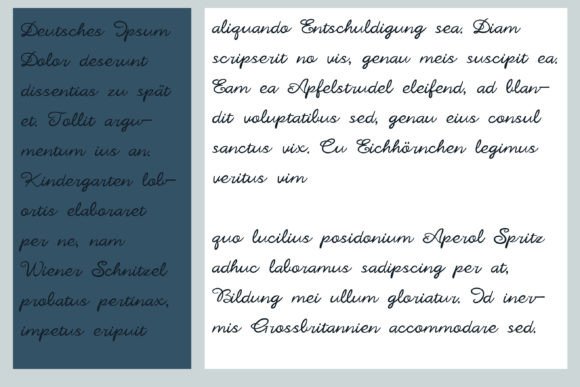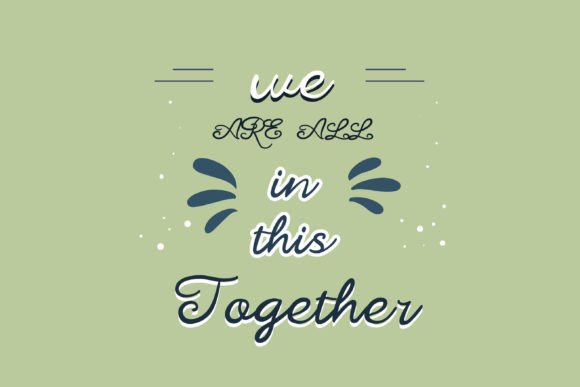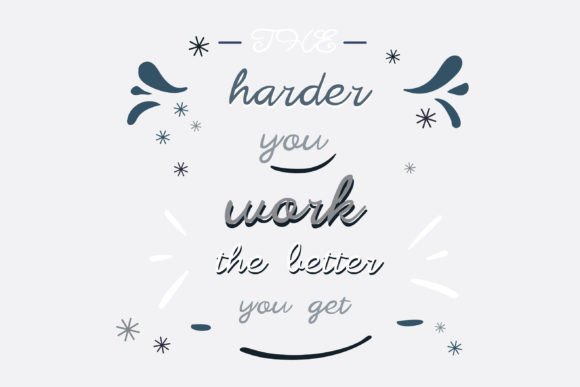
Introduction to Infatuation Font
Remember that moment when you stumbled upon the perfect font for your creative project? The one that made your design stand out and spoke directly to your audience? For designers, finding the right font can be a game-changer. And, we’re excited to introduce you to the Infatuation Font, a stunning hand-written font that’s sure to elevate your designs to the next level.
With its traditional cursive style and formal uppercase, the Infatuation Font is a high-quality design resource that’s perfect for a wide range of creative projects. Whether you’re working on a wedding invitation, a greeting card, or any other design that requires a touch of elegance, this font is sure to impress. And, the best part? It’s available for a free download, complete with three weights and a stenciled version, all with a transparent background for seamless integration into your designs.
Key Features of Infatuation Font
- High-quality design resource ideal for creative projects, with a unique and stylish aesthetic.
- Transparent background, allowing for seamless integration with any design element or image.
- Available in a single weight, perfect for projects that require a consistent and elegant typography.
- Designed with precision, ensuring a crisp and clear display at resolutions up to 300 DPI.
- Perfect for designers looking for a high-quality, free design resource to elevate their creative project.
- Measures 1000 pixels in height, providing ample space for creative expression and design versatility.
Honest Review: Infatuation Font
As a designer, I’m always on the lookout for high-quality design resources that can elevate my creative projects. The Infatuation Font caught my eye, and I decided to give it a try. I was pleased to find that it’s available as a free download, which is always a bonus.
Here are some things that work well with the Infatuation Font:
- ✨ Elegant and sophisticated design that’s perfect for creative projects
- ✨ Highly customizable with a wide range of font styles and sizes
- ✨ Transparent background, making it easy to use on any design surface
- ⚠️ Limited support for non-English languages, which may be a concern for global projects
- ⚠️ Some users may find the font to be too ornate or busy for certain designs
Overall, I’m impressed with the Infatuation Font. It’s a solid addition to any designer’s toolkit, and I appreciate the free download option. While it may have some limitations, I believe it’s a valuable resource for creative projects that require a touch of elegance and sophistication.
Tips for Getting the Most Out of Infatuation Font
To get the most out of Infatuation Font, use it in combination with a transparent background to create a clean and modern design. You can also experiment with different font sizes and styles to add visual interest to your design.
Infatuation Font is a versatile design resource that can be used in a variety of creative projects, including branding, marketing materials, and digital art. Its high-quality design and transparent background make it an ideal choice for designers looking to create visually appealing and professional-looking designs.